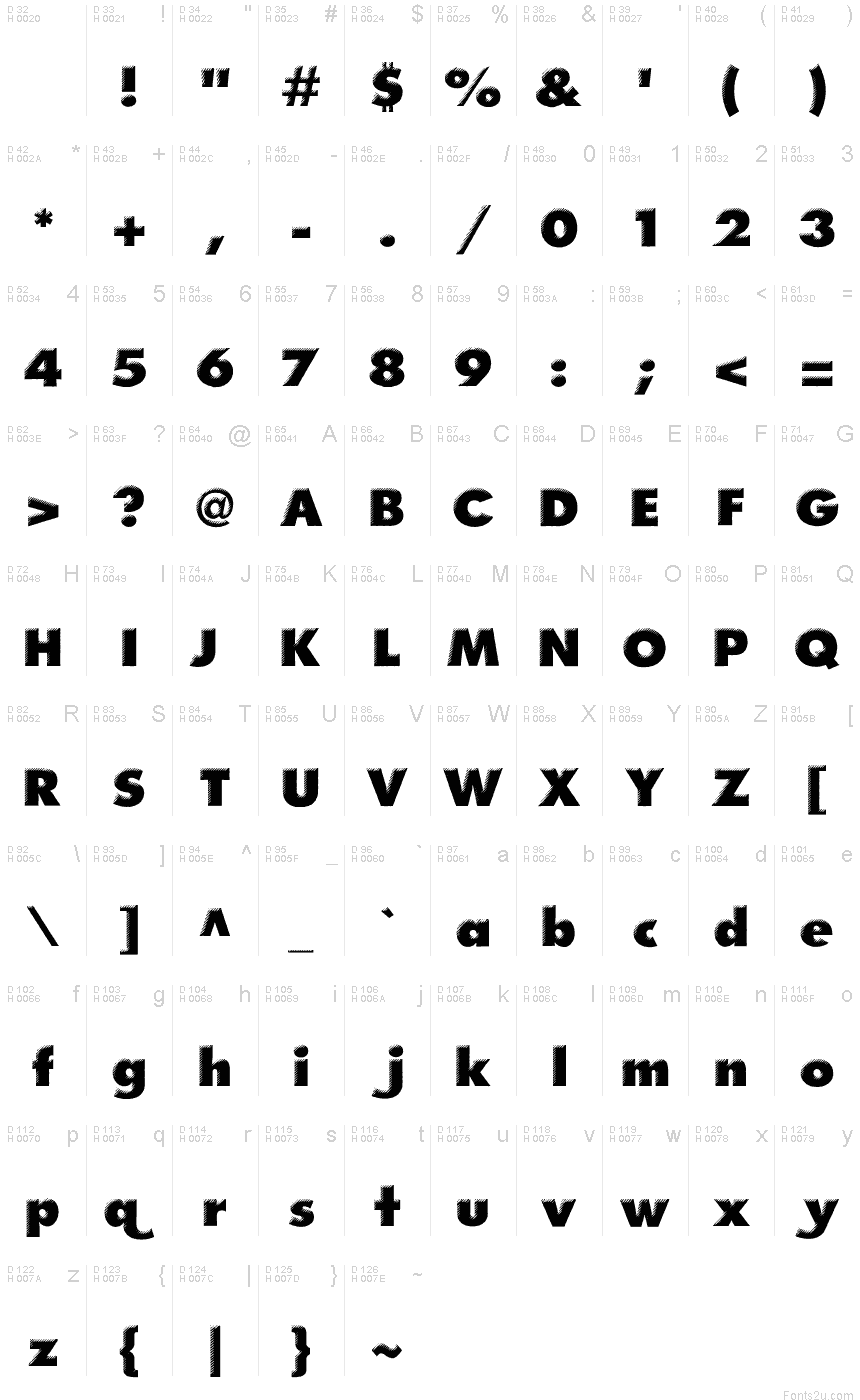
CM Cold Request Extra Bold by Christopher Means is a free distressed sans serif with an oversized silhouette. Rounded forms give the lettering blunt poster force. Ragged diagonal scratches cut across the edges and add a dry, hand-scuffed texture.
It is strongest on music posters, where its dark mass can echo loud, rough-edged artwork. It also suits streetwear graphics and action-sports merchandise. In either setting, the scratched surface can become part of the brand's identity.
CM Cold Request is a font by Christopher Means, designed by Christopher Means in 2012.